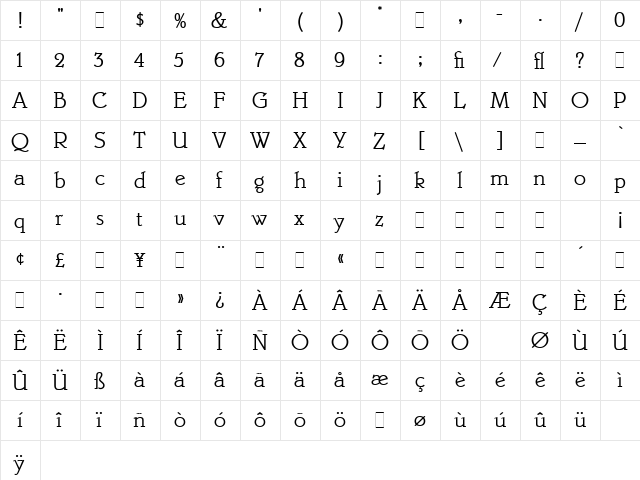
Belwe Mono LET Plain
Design Context for Belwe Mono LET Typeface
Belwe Mono LET brings the precise, column-aligned rhythm of monospaced typography to designs that value technical clarity and systematic order.
Pro Tip: Use Belwe Mono LET with slightly increased line-height for extended reading — fixed-width spacing can feel dense in longer passages without extra breathing room.